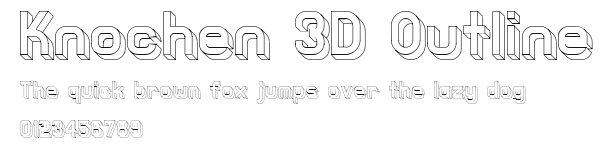
Knochen 3D Outline.ttf is a modern, elegant sans-serif font designed for ultimate readability and visual harmony. Perfect for branding, headlines, web design, and print materials.